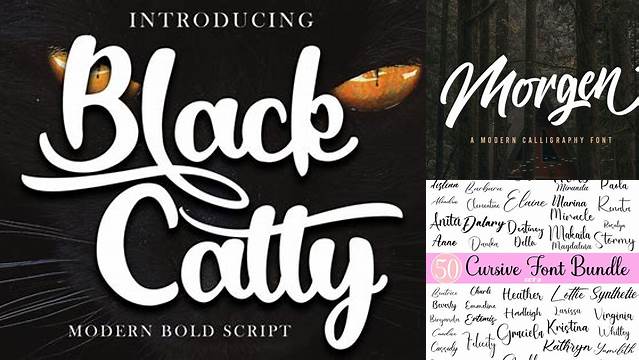
Free Bold Cursive Fonts: Download & Usage Guide
Hey guys! Looking to spice up your designs with some awesome free fonts bold cursive? You've come to the right place! In this guide, we're diving deep into the world of bold cursive fonts, exploring everything from where to find them to how to use them effectively. Let's get started!
1. Understanding the Allure of Free Bold Cursive Fonts
So, what's the big deal with free fonts bold cursive? Well, these fonts bring a touch of elegance and personality to any project. They're perfect for adding a handwritten feel to invitations, logos, and even website headers. Plus, the "free" part is always a bonus! When choosing bold cursive fonts, consider the overall tone of your project. A delicate, flowing script might be perfect for a wedding invitation, while a bolder, more assertive cursive could work wonders for a rock band's logo. Also, pay attention to readability. A beautiful font is useless if nobody can actually read it!
Experiment with different font pairings to find the perfect combination. A bold cursive heading can look stunning paired with a clean, sans-serif body font. Remember to consider the licensing terms of the free fonts you download. Some fonts are free for personal use only, while others can be used commercially. Always double-check to avoid any legal issues down the road. Finally, don't be afraid to get creative! Use bold cursive fonts in unexpected ways to make your designs truly stand out.
2. Top Websites to Download Free Bold Cursive Fonts
4. Using Free Bold Cursive Fonts in Graphic Design
Alright, let's get creative! Free fonts bold cursive can add a unique touch to your graphic designs. When using these fonts, consider the overall design aesthetic and target audience. A bold cursive font might be perfect for a feminine or vintage-inspired design, but it might not be suitable for a corporate or modern design. Use bold cursive fonts sparingly to avoid overwhelming the viewer. A little goes a long way! Experiment with different font sizes, colors, and spacing to create visual interest. A large, bold cursive heading can make a statement, while a smaller, more delicate cursive can add a subtle touch of elegance.
Consider using bold cursive fonts for logos, headings, and short phrases. Avoid using them for large blocks of text, as they can be difficult to read. Pair bold cursive fonts with simpler fonts to create a balanced and harmonious design. A sans-serif font, such as Arial or Helvetica, can complement a bold cursive font nicely. Use bold cursive fonts to create a sense of personality and authenticity in your designs. A handwritten-style font can make your designs feel more personal and approachable. Remember to always test your designs with different fonts to see what works best. Get feedback from others to ensure that your designs are effective and visually appealing.
5. Combining Free Bold Cursive Fonts with Other Fonts
One of the keys to great typography is knowing how to combine free bold cursive fonts with other typefaces. A bold cursive font can be a real showstopper, but it needs a supporting cast to truly shine. Try pairing a bold cursive heading with a clean and simple sans-serif font for the body text. This creates a nice contrast and ensures that the text is easy to read. Another option is to use a serif font, such as Times New Roman or Garamond, for the body text. This can create a more classic and elegant look. Experiment with different font weights and sizes to create visual hierarchy. A bold cursive heading should be larger and more prominent than the body text.
Use different font colors to add visual interest and guide the reader's eye. A bold cursive heading in a contrasting color can really stand out. Consider the overall tone and style of your design when choosing fonts. A playful cursive font might be perfect for a children's book, while a more formal cursive might be better suited for a wedding invitation. Don't be afraid to break the rules and experiment with unexpected font combinations. Sometimes, the most surprising combinations can be the most effective. Always test your font pairings to ensure that they work well together. Check for readability issues and make sure that the fonts complement each other visually. Remember that typography is an art form, so have fun and let your creativity shine!
6. Bold Cursive Fonts for Logos: Making a Statement
Using free fonts bold cursive for logos can be a fantastic way to make a statement and create a memorable brand identity. A bold cursive logo can convey a sense of elegance, sophistication, and personality. However, it's important to use cursive fonts strategically. Consider the target audience and the overall brand message. A bold cursive logo might be perfect for a fashion brand, a beauty salon, or a wedding planner, but it might not be suitable for a tech company or a law firm. Choose a cursive font that is legible and easy to read. A logo is useless if nobody can understand what it says. Keep the logo design simple and uncluttered. A bold cursive font can be visually complex, so it's important to keep the rest of the design clean and minimal.
Use a bold cursive font that reflects the brand's personality and values. A playful and whimsical font might be perfect for a children's brand, while a more elegant and refined font might be better suited for a luxury brand. Consider the scalability of the logo. A bold cursive font might look great at a large size, but it might become illegible at a smaller size. Test the logo in different sizes and formats to ensure that it looks good in all applications. Get feedback from others on your logo design. Ask for their opinions on the font choice, the overall design, and the brand message. A well-designed logo can be a valuable asset for any business. It can help to create brand recognition, build customer loyalty, and attract new customers. When you use free fonts bold cursive correctly, your logo is sure to stand out!
7. Designing Wedding Invitations with Free Bold Cursive Fonts
Planning a wedding? Free fonts bold cursive are your best friend! These fonts add a touch of romance and elegance to wedding invitations. When choosing a bold cursive font for your invitations, consider the overall theme and style of your wedding. A delicate and flowing script might be perfect for a classic and traditional wedding, while a bolder and more modern cursive might be better suited for a contemporary wedding. Use bold cursive fonts for headings, names, and other important details. Avoid using them for large blocks of text, as they can be difficult to read. Pair bold cursive fonts with simpler fonts for the body text. A sans-serif font, such as Arial or Helvetica, can complement a bold cursive font nicely.
Use different font sizes and weights to create visual hierarchy. The bride and groom's names should be the largest and most prominent elements on the invitation. Consider the color of the font. A classic choice is black ink on white paper, but you can also experiment with other colors to match your wedding theme. Use a high-quality paper stock to make your invitations feel luxurious and special. Add embellishments, such as ribbons, lace, or wax seals, to further enhance the elegance of your invitations. Proofread your invitations carefully before printing to ensure that there are no errors. A well-designed wedding invitation can set the tone for your entire wedding. It can give your guests a glimpse into your personal style and create excitement for the big day.
8. Enhancing Website Design with Free Bold Cursive Fonts
Free fonts bold cursive can add a touch of personality and style to your website design. However, it's important to use these fonts strategically to avoid compromising readability and user experience. Use bold cursive fonts sparingly for headings, logos, and other decorative elements. Avoid using them for large blocks of text, as they can be difficult to read on screen. Choose cursive fonts that are optimized for web use. Some fonts may not render well on certain browsers or devices.
Ensure that the bold cursive font you choose is legible and easy to read on different screen sizes and resolutions. Test your website on different devices to ensure that the font looks good on all of them. Use a font size that is large enough to be easily readable. Consider the contrast between the font color and the background color. Ensure that there is enough contrast to make the font easy to read. Use CSS to control the appearance of your fonts. You can use CSS to adjust the font size, color, spacing, and other properties. Optimize your website for speed. Large font files can slow down your website's loading time. Use a font hosting service, such as Google Fonts, to improve your website's performance. A well-designed website can help you attract new customers, build brand awareness, and increase sales. By using free fonts bold cursive strategically, you can create a website that is both visually appealing and user-friendly.
9. Creating Eye-Catching Social Media Graphics with Free Bold Cursive Fonts
In the world of social media, visuals reign supreme. Free fonts bold cursive can be your secret weapon for creating eye-catching graphics that grab attention and boost engagement. Use bold cursive fonts to create compelling headlines and captions. A well-chosen cursive font can add a touch of personality and style to your posts. Use fonts that are legible and easy to read on small screens. Social media users are often scrolling through their feeds on their phones, so it's important to choose fonts that are easy to read on mobile devices.
Experiment with different font colors and sizes to create visual interest. Use a font color that contrasts with the background color to make your text stand out. Use different font sizes to create visual hierarchy and guide the reader's eye. Use bold cursive fonts to highlight key words and phrases. This can help to draw attention to the most important information in your post. Use fonts that are consistent with your brand identity. This will help to create a cohesive and recognizable brand presence on social media. Use high-quality images and videos to complement your text. Visuals are an essential part of social media, so it's important to use high-quality images and videos that are relevant to your message. A well-designed social media graphic can help you to increase brand awareness, drive traffic to your website, and generate leads.
10. Designing Posters and Flyers with Free Bold Cursive Fonts
Free fonts bold cursive can add a touch of elegance and sophistication to your posters and flyers. Use these fonts strategically to create visually appealing designs that grab attention and convey your message effectively. Use bold cursive fonts for headings and titles to create a sense of drama and excitement. Choose fonts that are legible and easy to read from a distance. Posters and flyers are often viewed from afar, so it's important to choose fonts that are easy to read from a distance.
Experiment with different font colors and sizes to create visual interest. Use a font color that contrasts with the background color to make your text stand out. Use different font sizes to create visual hierarchy and guide the reader's eye. Use bold cursive fonts to highlight key information, such as dates, times, and locations. This can help to ensure that your message is clear and concise. Use fonts that are consistent with your brand identity. This will help to create a cohesive and recognizable brand presence. Use high-quality images and graphics to complement your text. Visuals are an essential part of poster and flyer design, so it's important to use high-quality images and graphics that are relevant to your message. A well-designed poster or flyer can help you to promote your event, product, or service effectively.
11. Creating Personalized Gifts with Free Bold Cursive Fonts
12. Designing T-Shirts with Free Bold Cursive Fonts
13. Using Free Bold Cursive Fonts in Video Editing
14. Creating Digital Invitations with Free Bold Cursive Fonts
15. Free Bold Cursive Fonts for Business Cards
16. Designing Book Covers with Free Bold Cursive Fonts
17. Free Bold Cursive Fonts for Menu Design
18. Creating Certificates with Free Bold Cursive Fonts
19. Free Bold Cursive Fonts for Greeting Cards
20. Using Free Bold Cursive Fonts in Presentations
21. Free Bold Cursive Fonts for Scrapbooking
22. Designing Labels with Free Bold Cursive Fonts
23. Free Bold Cursive Fonts for Newsletters
24. Using Free Bold Cursive Fonts in eBooks
25. Free Bold Cursive Fonts for Magazine Layouts
26. Designing Infographics with Free Bold Cursive Fonts
27. Free Bold Cursive Fonts for Stationery Design
28. Using Free Bold Cursive Fonts in Motion Graphics
29. Free Bold Cursive Fonts for App Design
30. Troubleshooting Common Issues with Free Bold Cursive Fonts
In conclusion, leveraging free fonts bold cursive can significantly enhance your creative projects. Remember to prioritize readability, choose the right pairings, and respect licensing terms. Happy designing, everyone!